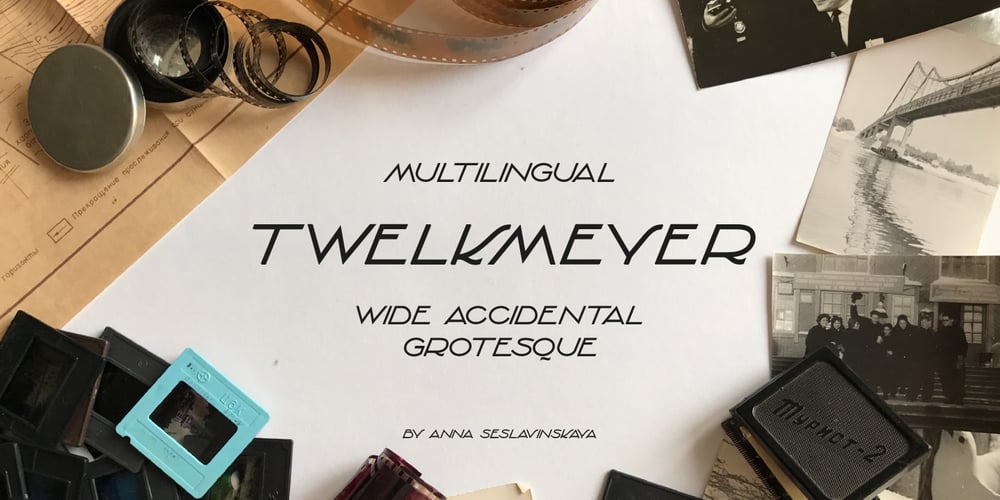
Twelkmeyer
Twelkmeyer font
Twelkmeyer Font Family was designed by Anna Seslavinskaya and published by Popkern. Twelkmeyer contains 1 styles and family package options. The multilingual accidental typeface was inspired by the pathos of the late revolutionary asceticism and architectural projects of V.F. Twelkmeyer. All story on twelkmeyer.com This typeface is a spring swallow. This typeface is a dawn and optimism of alumnus of Higher Art and Technical Institute in Leningrad. This typeface is a mirror of the Soviet architecture 30’s. It reflects the impressions from Vesnin brothers and Ginzburg’s works, a curiosity to Bauhaus, and the first test of the waters of socialist reconstructions. This wide, dynamic, angular, drawing typeface will be perfect for serious branding and architectural projects. So, give it a try! From innovative ideas of the 30s to innovative projects of the XXI century.